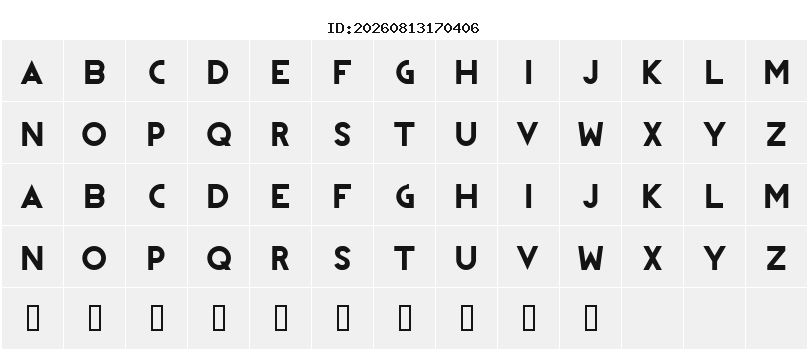
• Font Name: REVOLUTION
• Designer: SAJI JOHNNY KUNDUKULAM
About REVOLUTION.ttf
REVOLUTION.ttf is a modern, elegant sans-serif font designed for ultimate readability and visual harmony. Perfect for branding, headlines, web design, and print materials.